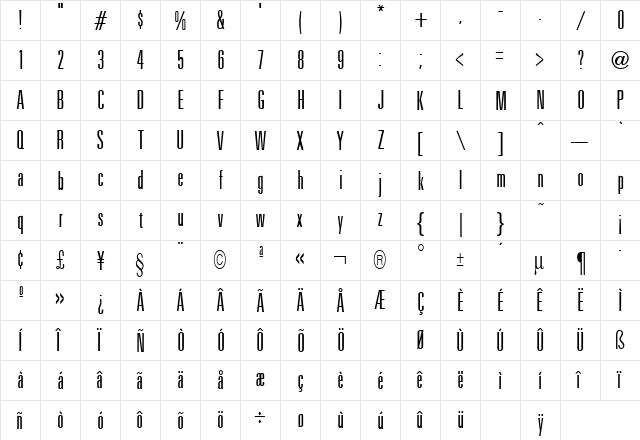
Uniform Ultra Condensed Regular
Design Context for Uniform Ultra Condensed Typeface
Uniform Ultra Condensed offers clean, dependable letterforms without strong stylistic allegiance, making it a practical choice for designers who need flexibility. Its narrow stance lets it pack a punch even in space-constrained designs.